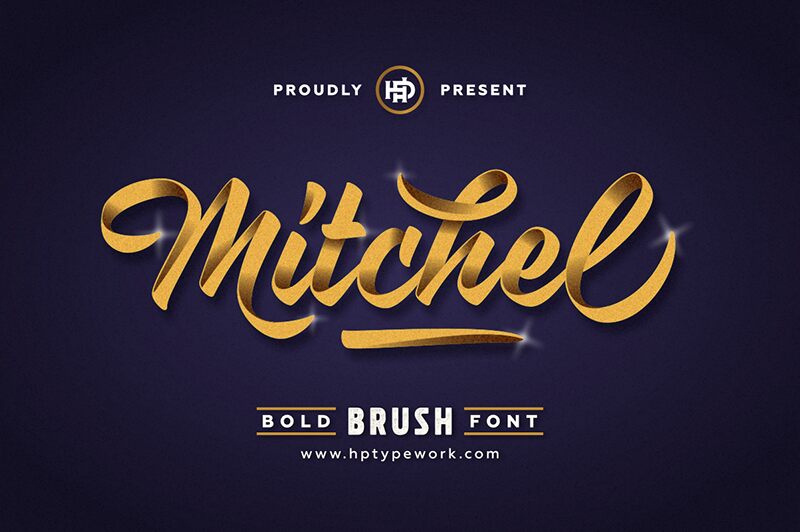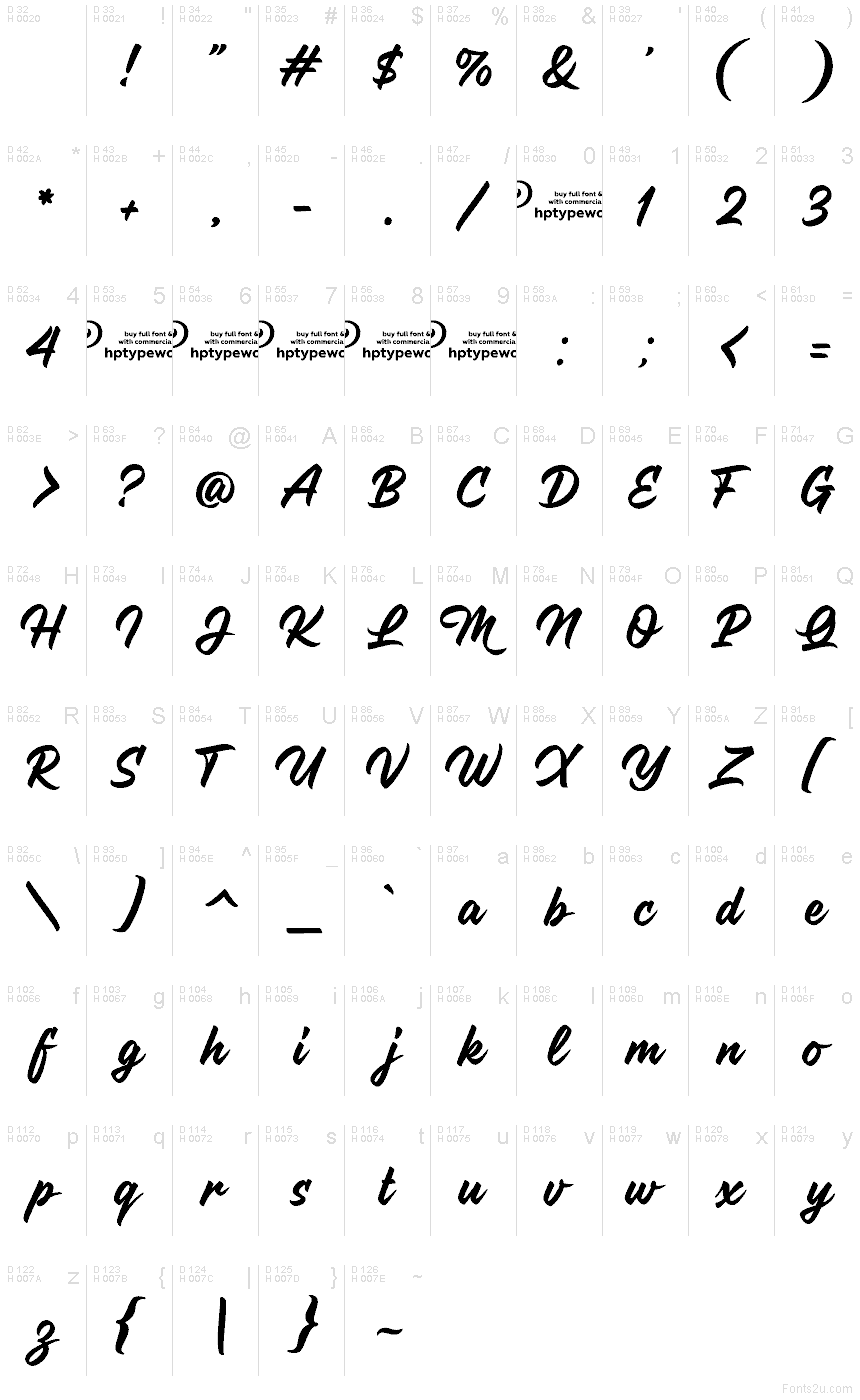
Mitchel
Mitchel font designed by Hendra Pratama is a brush script free font. Sleek, expressive, and contemporary in its appeal, the typeface’s flowing characters have clean angular edges and small friendly curves. The connected letters form holes inside of them that create patterns pleasing to the eye.